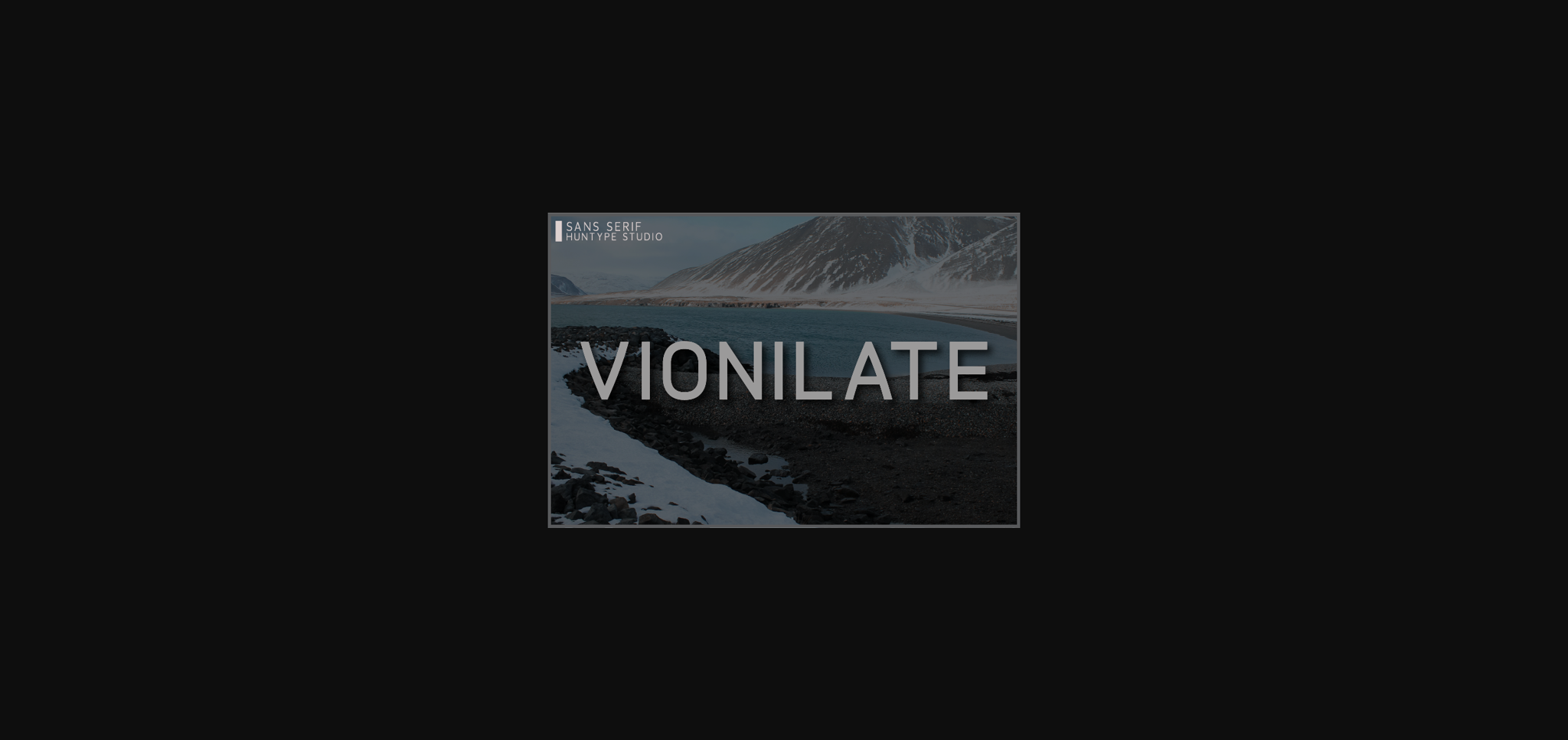
HomeSans Serif FontsVionilate Font Sans Serif Fonts Vionilate Font FacebookXPinterestWhatsApp 1 of 5 ... Vionilate Font Poster 2... Vionilate Font Poster 3... Vionilate Font Poster 4... Vionilate Font Poster 5... About Vionilate Font Vionilate is a modern and minimalist sans serif font. It’s perfect for logos, magazines, branding, photography, quotes and much more! DOWNLOAD NOW People also explored Tobu New Class Font Mileage Font Rathya Baby Bunny Font Rosegold Font Sarah Jane Merry Christmas Font Olive Font 323 0 TagsVionilate Font Previous articleHodtelvo FontNext articleGeorguine Font LEAVE A REPLY Cancel reply Comment: Please enter your comment! Name:* Please enter your name here Email:* You have entered an incorrect email address! Please enter your email address here Website: Save my name, email, and website in this browser for the next time I comment. Personal Use Free Delions Personal Use Free Read more about this font GinĂ³ra Personal Use Free Read more about this font Super Bubbly Font Personal Use Free Read more about this font Wadjet Personal Use Free Read more about this font BLOG Top 7 Google Fonts Alternatives for Faster and Privacy-Friendly Web Design (2025) Top 7 Google Fonts Alternatives for Faster and Privacy-Friendly Web Design (2025) When it comes to web typography, Google Fonts has long been the go-to... The 10 Best Handwriting Fonts to Add Personality to Your Designs Exploring Font Trends Free vs Paid Fonts: Why Investing in Premium Fonts Is Worth It